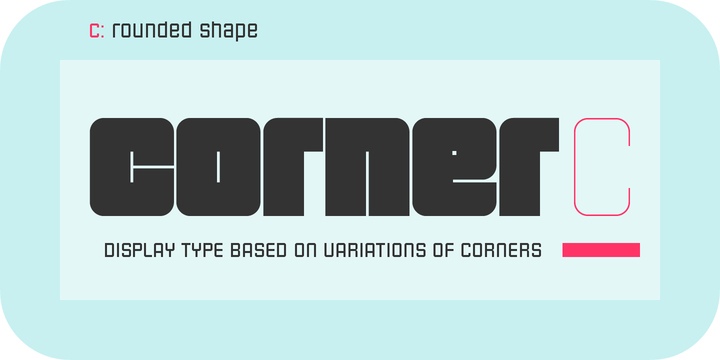
Corner C Font
Corner C Font is perfect for contemporary design agencies, modern architectural studios, geometric branding systems, minimalist tech startups, structural engineering firms, angular product packaging, cutting-edge furniture companies, and sophisticated construction marketing. This sharp typeface excels in applications where geometric precision and angular innovation are essential for creating distinctive and mathematically-inspired brand experiences that celebrate contemporary design excellence.
What makes Corner C Font truly exciting is its exceptional embodiment of geometric sophistication and angular design mastery that captures the calculated beauty of contemporary architecture and the systematic precision of modern engineering solutions. The font features crisp, angular letterforms with distinctive corner treatments and geometric construction that mirror the bold intersections of parametric design and the mathematical elegance of structural frameworks. Its precise personality and geometric character create an immediate sense of design innovation and architectural sophistication that resonates with audiences seeking cutting-edge aesthetic solutions and contemporary design excellence. The typeface's angular appeal and geometric integrity make it perfect for brands wanting to convey precision, innovation, and connection to the evolving landscape of geometric design and architectural advancement.
The Corner C Font family includes comprehensive weight range from Light to Bold, complemented by angular alternates and geometry-inspired decorative elements. The font offers extensive character sets with architectural symbols, geometric indicators, and angular styling details that enhance its contemporary aesthetic. Additional graphic elements including corner patterns, geometric motifs, structural ornaments, and angular flourishes provide designers with complete branding tools rooted in modern design principles and geometric excellence.